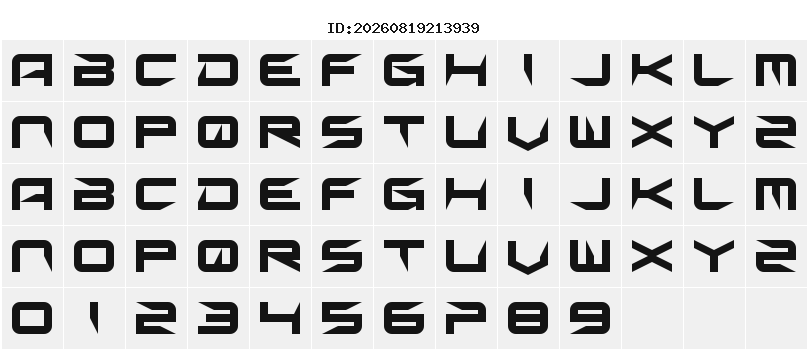
• Font Name: Sharp
• Font ID: FontStruct Sharp
• Full Font Name: Sharp Regular
• PostScript Name: Sharp
• Designer: Andrew McCluskey
• Description: ‚ÄúSharp‚Äù was built with FontStruct
About Sharp.ttf
Sharp.ttf is a modern, elegant sans-serif font designed for ultimate readability and visual harmony. Perfect for branding, headlines, web design, and print materials.